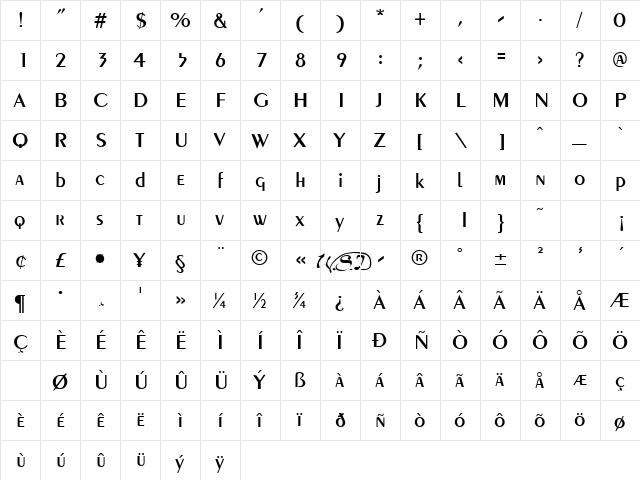
Penyae Regular
Design Context for Penyae Typeface
Penyae offers clean, dependable letterforms without strong stylistic allegiance, making it a practical choice for designers who need flexibility.